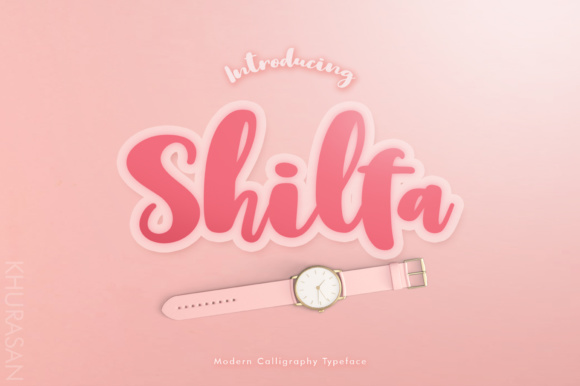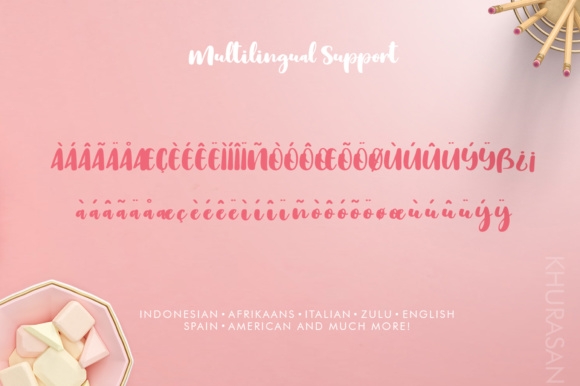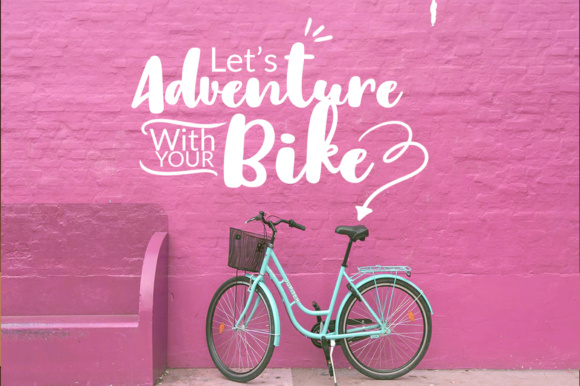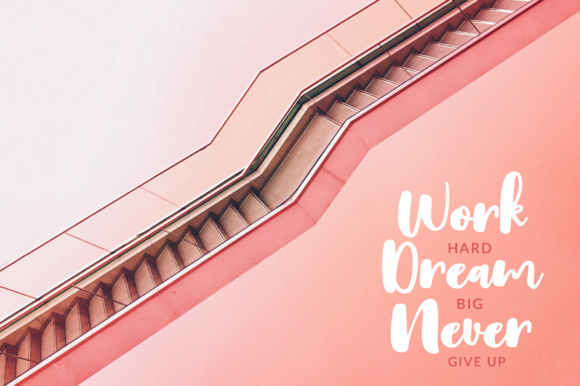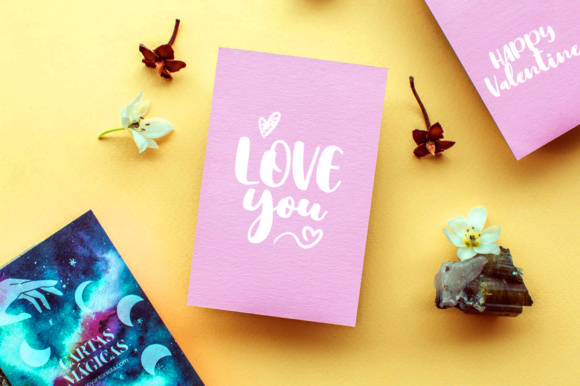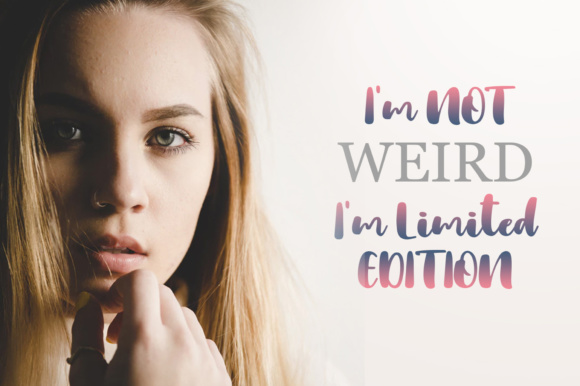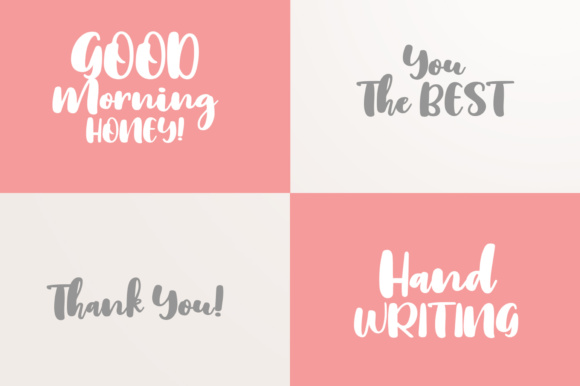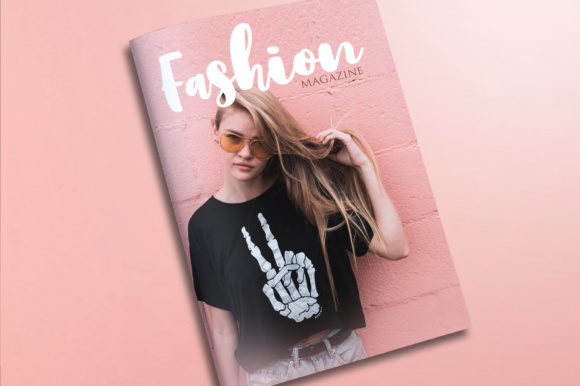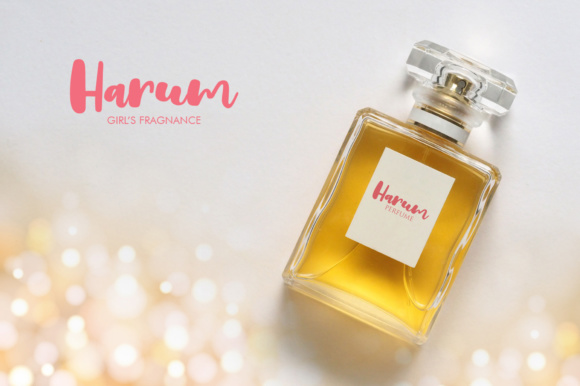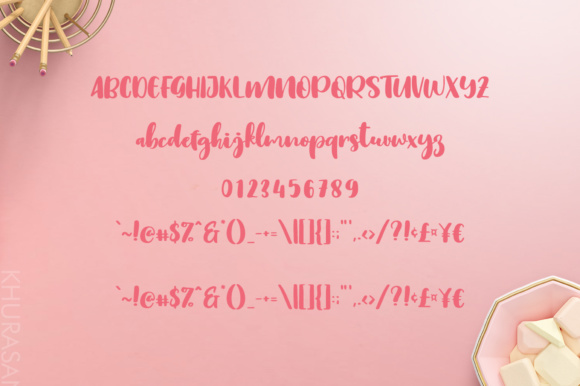
Shilfa Script Font
About Shilfa Script Font
The Shilfa is a bold script typeface with a cheerful theme. It is great for various designs such as: logos, branding, greeting cards, posters and any other design that needs a fun feel.